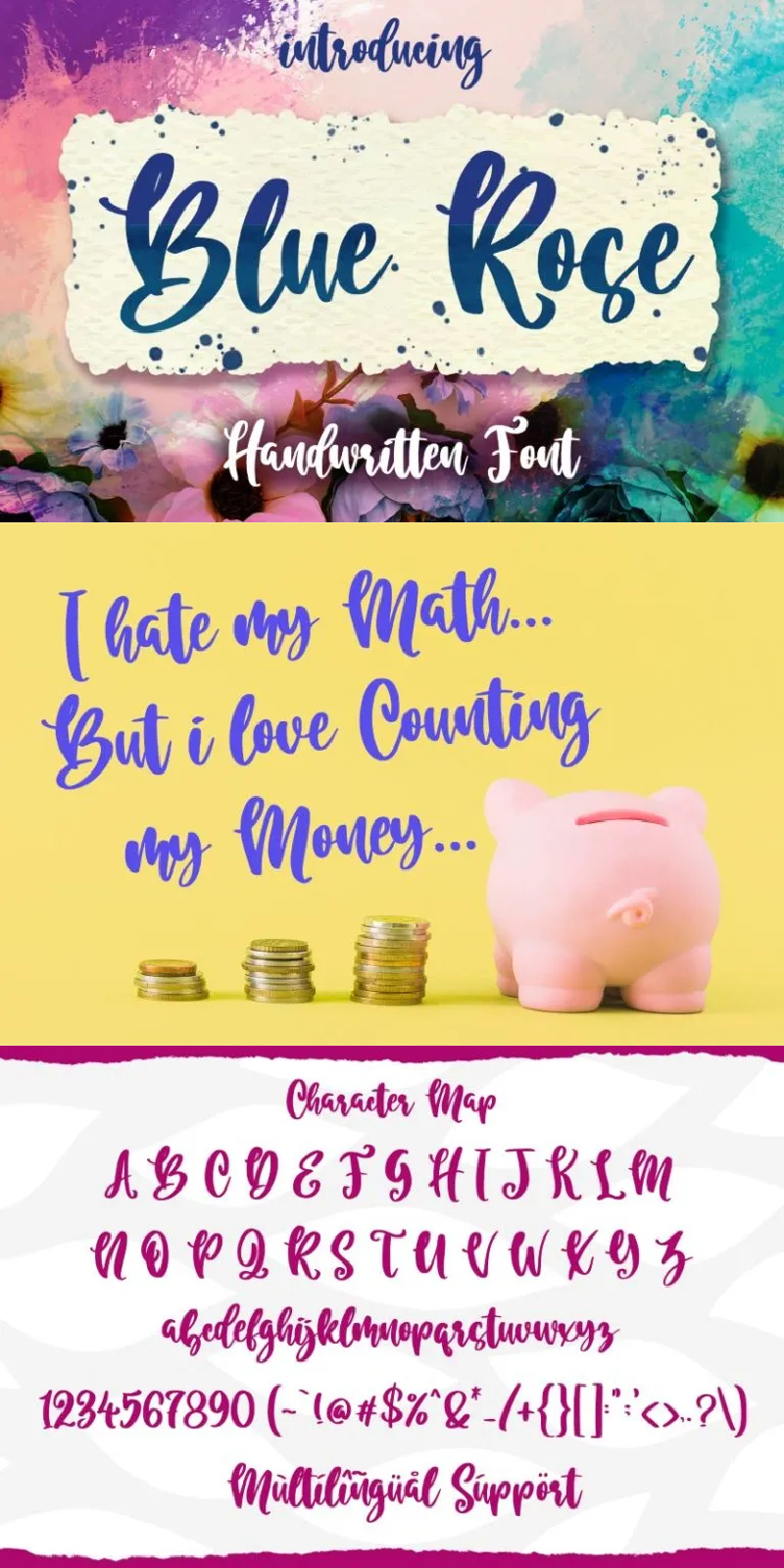
Blue Rose Font
About Blue Rose
Blue Rose is a gorgeous font, designed with a modern vibe. This handwritten font is perfect for anything adventurous and direct. Every stroke and curve was created to entice happiness and elegance. A real head-turner for your presentation, designs, branding, quotes, invitation, campaign, website illustrations, and so much more.
Our font always includes Multilingual Support to make your branding reach a global audience. Inspire your audience, clients, or guests with this beautiful, statement font. See the previews above to get some inspiration on how you can use them.